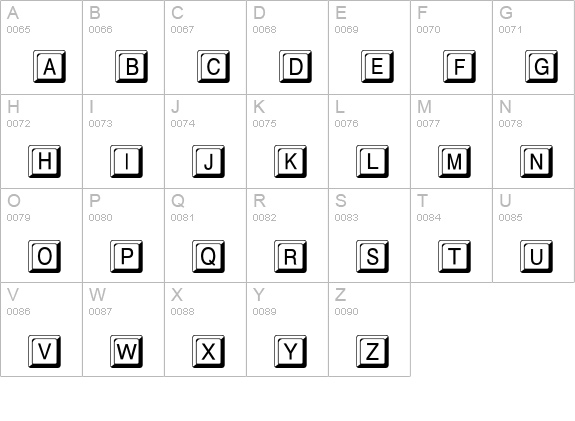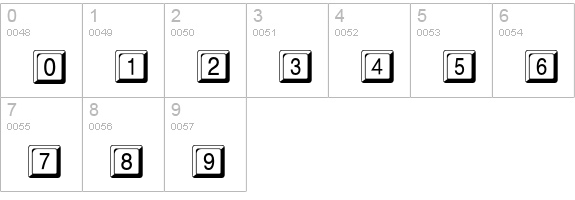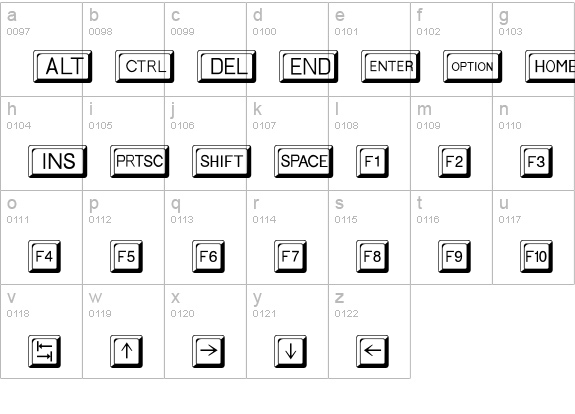
Introducing Tastatur, a stunning font that combines elegance and versatility, designed to enhance the visual appeal of any project. Tastatur is the epitome of modern sophistication, boasting a unique blend of sleek lines and subtle curves that effortlessly captivate the eye. This font is a true testament to the power of typography, as it exudes a sense of timeless beauty and refinement. With Tastatur, you have the freedom to express your creativity without limits. Whether you're designing a logo, creating a brand identity, or crafting eye-catching headlines, this font adapts seamlessly to any context, offering a wide range of styles and weights to suit your every need. Its meticulously crafted characters and precise spacing ensure legibility and readability, even at smaller sizes, making it the perfect choice for both print and digital projects. The best part? Tastatur font is available to you completely free of charge! Yes, you heard that right – this remarkable font can be downloaded at no cost from FontsMarket.com. Now, you can effortlessly elevate your design game without breaking the bank. Say goodbye to expensive licensing fees and hello to unlimited creative possibilities. So why wait? Experience the unmatched elegance and versatility of Tastatur font today. Download it for free at FontsMarket.com and take your designs to new heights. Unleash your imagination and let Tastatur be your trusted companion on your creative journey.